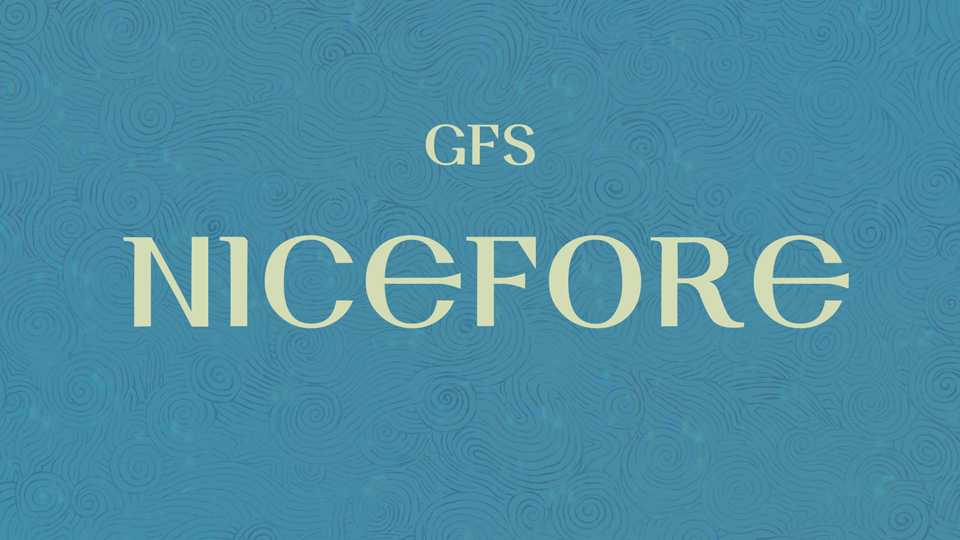
Download GFS Nicefore font, a display typeface that represents the typical Byzantine majuscule letterforms of the 5th to 7th centuries. GFS Nicefore is based on uncial scripts with Latin and Greek support.
Designer: Greek Font Society